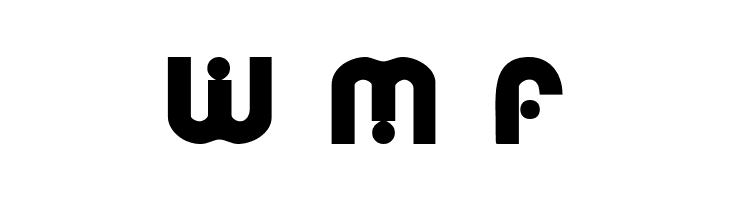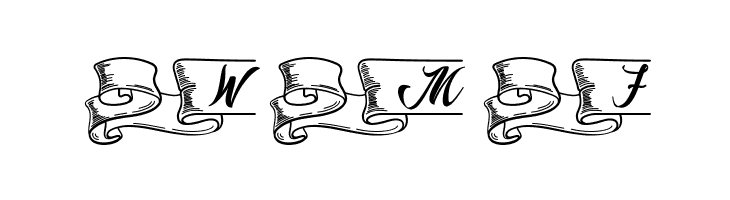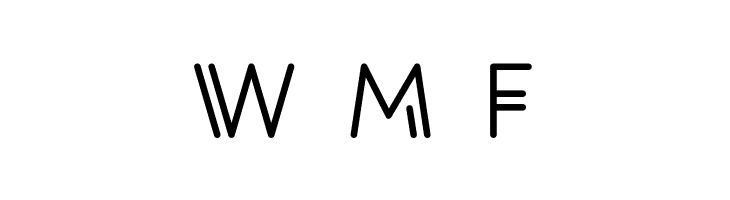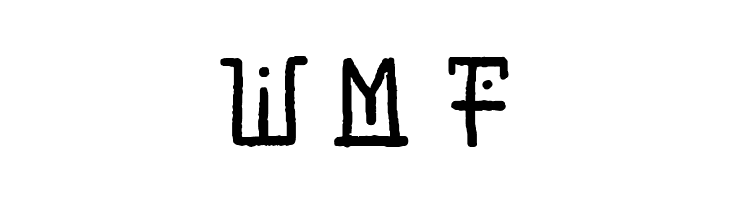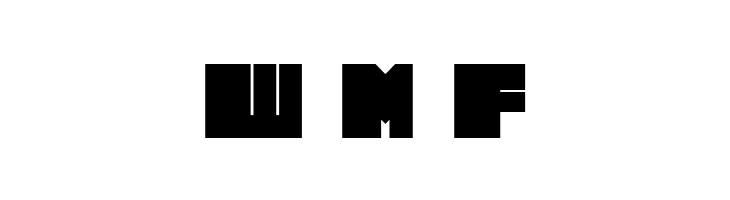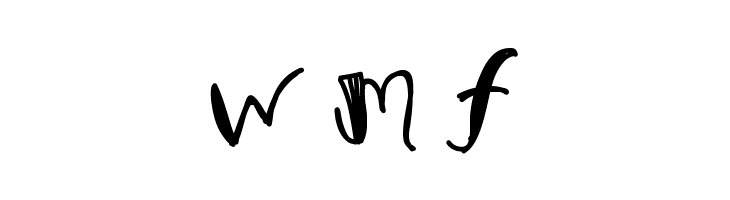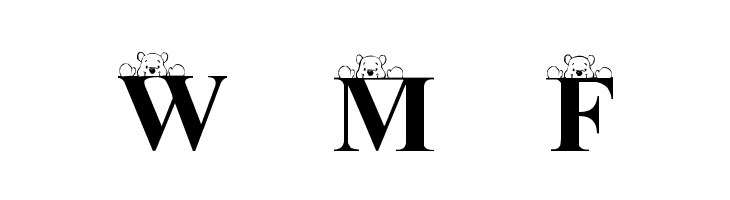
( Måns Grebäck - www.mansgreback.com )
A bold, modern font with a strong and uniform appearance.
( Pisto Casero - Gilberto Moya Perona - www.pistocasero.com )
A geometric and modern font with decorative line elements.
( Projeto Tipo da Fonte - Eduardo Novais - tipodafonte.wordpress.com )
A decorative and artistic font with playful, geometric, and organic forms.
( Vladimir Nikolic - www.coroflot.com/vladimirnikolic )
A bold, geometric font with a modern, industrial style and decorative elements.
( Vladimir Fedotov )
A modern, geometric font with artistic double lines and clean strokes.
( Wacaksara Co - www.wacaksara.co )
A flowing, cursive script font with elegant loops and swashes.
A vibrant, graffiti-inspired font with bold, decorative characters.
( Chequered Ink - chequered.ink/ )
A segmented, geometric font inspired by digital displays.
( Des )
A playful, handwritten font with dynamic strokes and whimsical characters.
( Digital Type Foundry - www.digitaltypefoundry.com/ )
A mystical and decorative font with intricate, esoteric designs.
( Gilmore Gallery - gilmoregallery.com )
An ornate and decorative font with intricate swirls and flourishes.
( Glyphobet Font Foundry - glyphobet.net/typography/ )
A bold, playful font with overlapping elements and a modern, quirky style.
( James Fordyce )
An ornate, medieval-style font with intricate flourishes.
( Jonathan S. Harris - www.tattoowoo.com )
A whimsical, floral-adorned script font perfect for creative projects.
( London's Letters - www.londonsletters.com/ )
A whimsical serif font with playful bears peeking over each character.
( London's Letters - www.londonsletters.com/ )
A bold, uppercase font with decorative shield emblems, ideal for impactful designs.
( London's Letters - www.londonsletters.com/ )
A playful font with cartoon characters integrated into bold, rounded letters.
( Mawhrt )
A decorative font with intricate, vine-like embellishments and a mysterious, enchanting style.
( Megami Studios - incstonedesign.com/ )
A decorative and mystical font with bold, flowing characters and unique embellishments.
( Nght's Place - www.crosswinds.net/~nghtmvs/font/fonts1.html )
A decorative font with characters enclosed in medal-like shapes, perfect for playful designs.
( Out Of Step Font Company - outofstepfontco.com )
A modern, geometric font with tall, narrow characters and consistent stroke width.
( Perry Mason )
A bold, intricate blackletter font with a medieval aesthetic.
( Rebecca )
A bold, geometric font with decorative accents and a modern flair.
A decorative display font made entirely of diverse arrow designs.
A bold, geometric font with circular decorative elements, offering a modern and playful style.
A bold, angular font with a gothic influence and unique flourishes.
A bold, modern sans-serif font with thick strokes and strong presence.
An ornate and intricate blackletter font with a classic and historical style.
( Fonts by Inopatype )
An ornate, ribbon-inspired script font with elegant flourishes.
A geometric, outlined font with a modern and futuristic style.